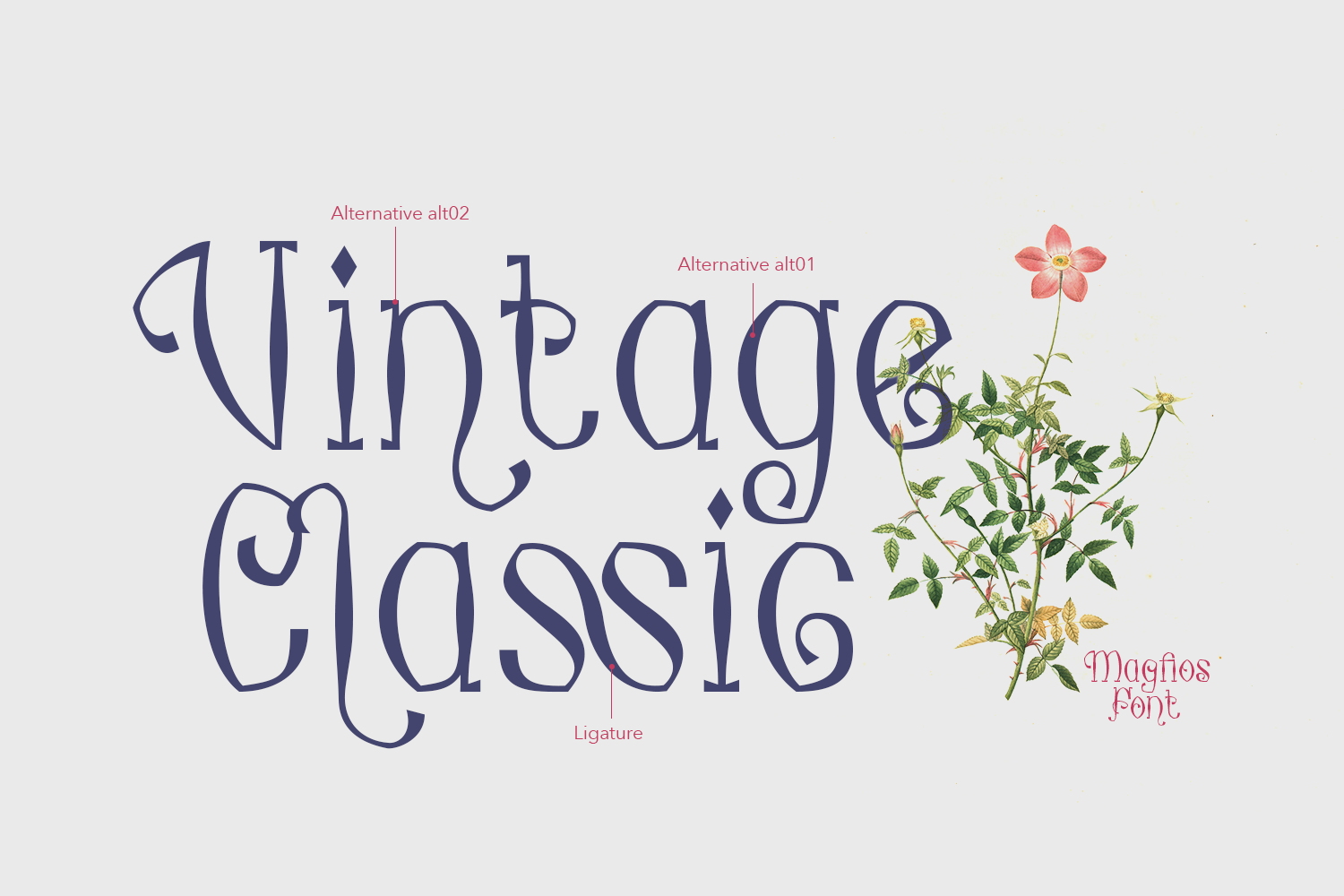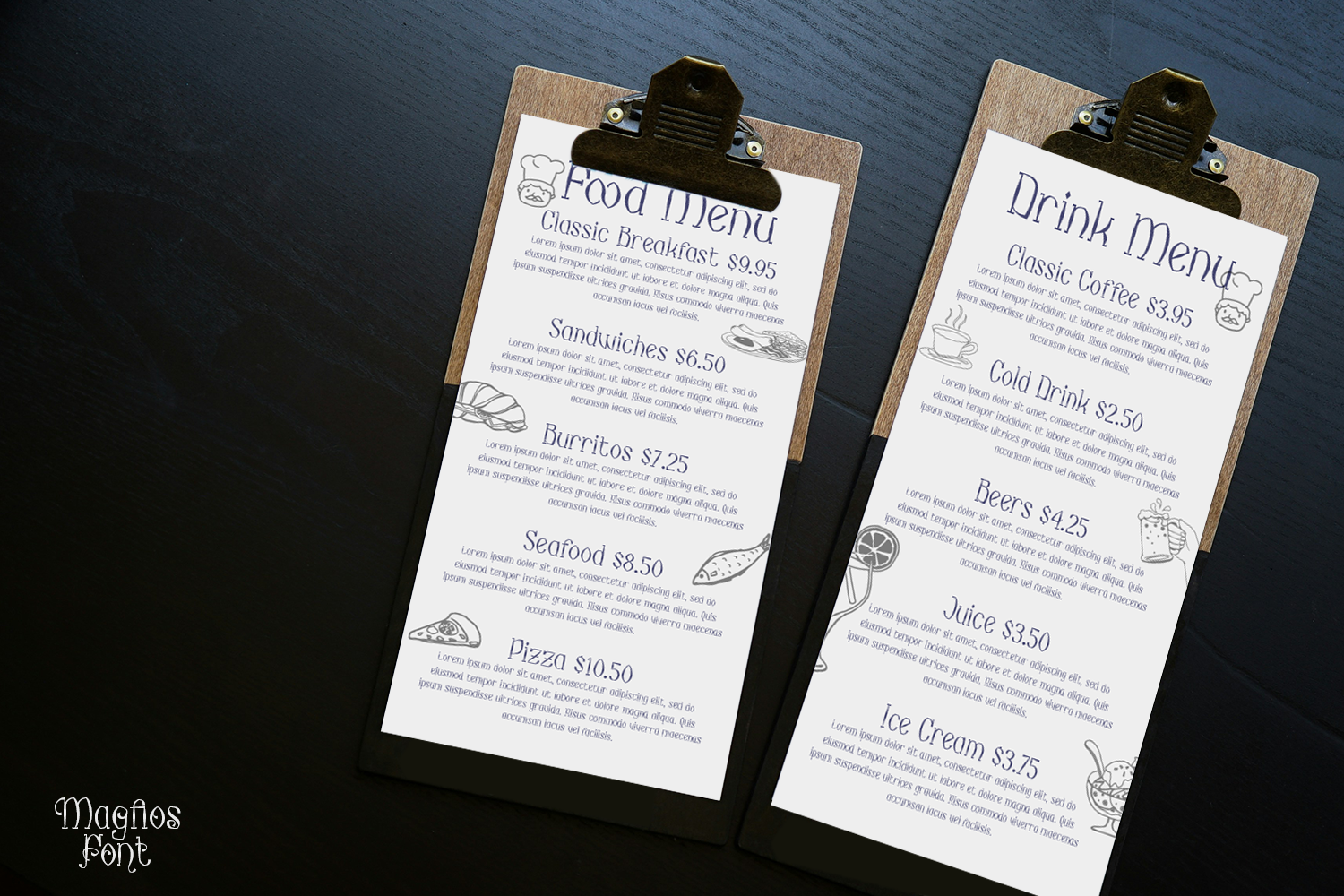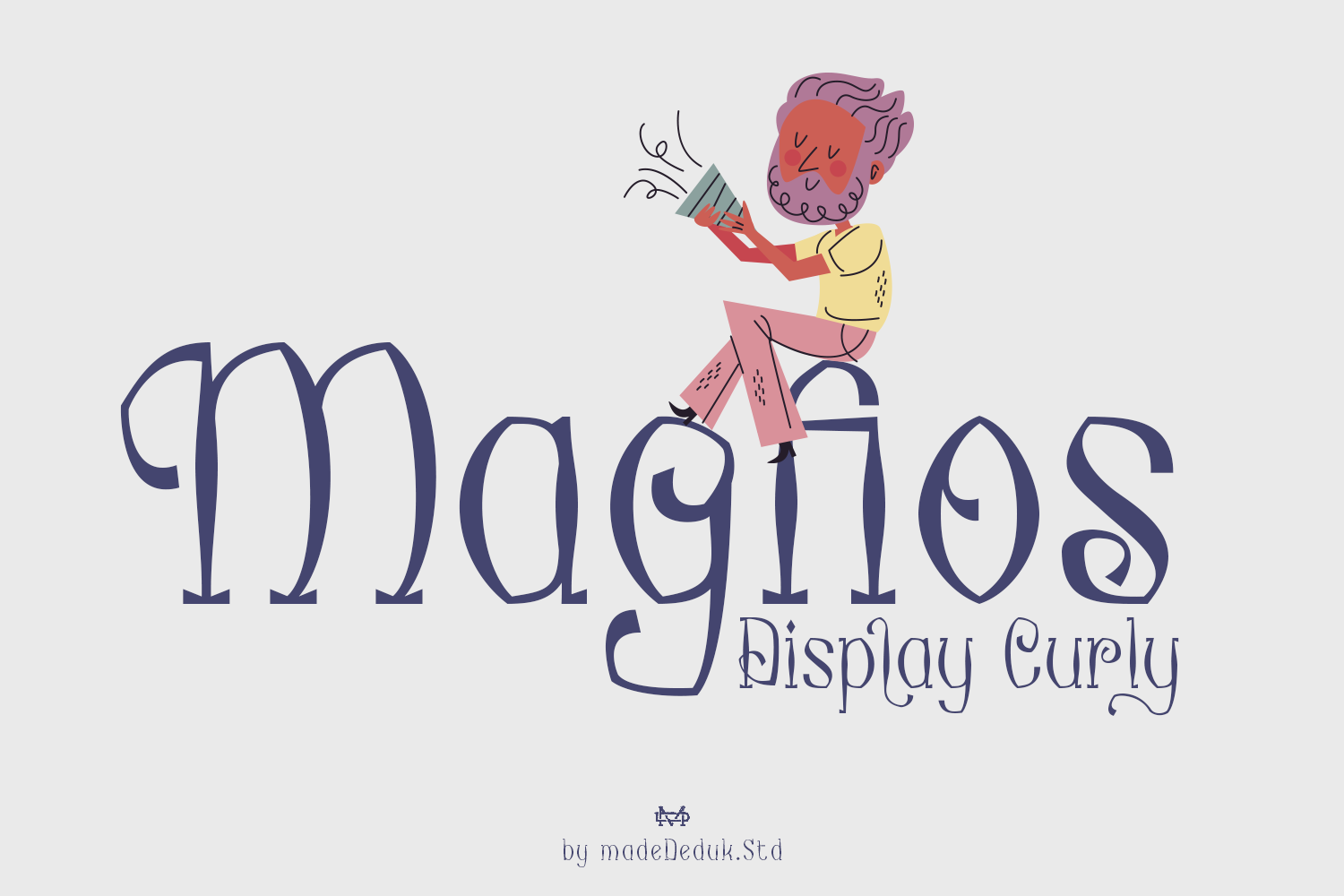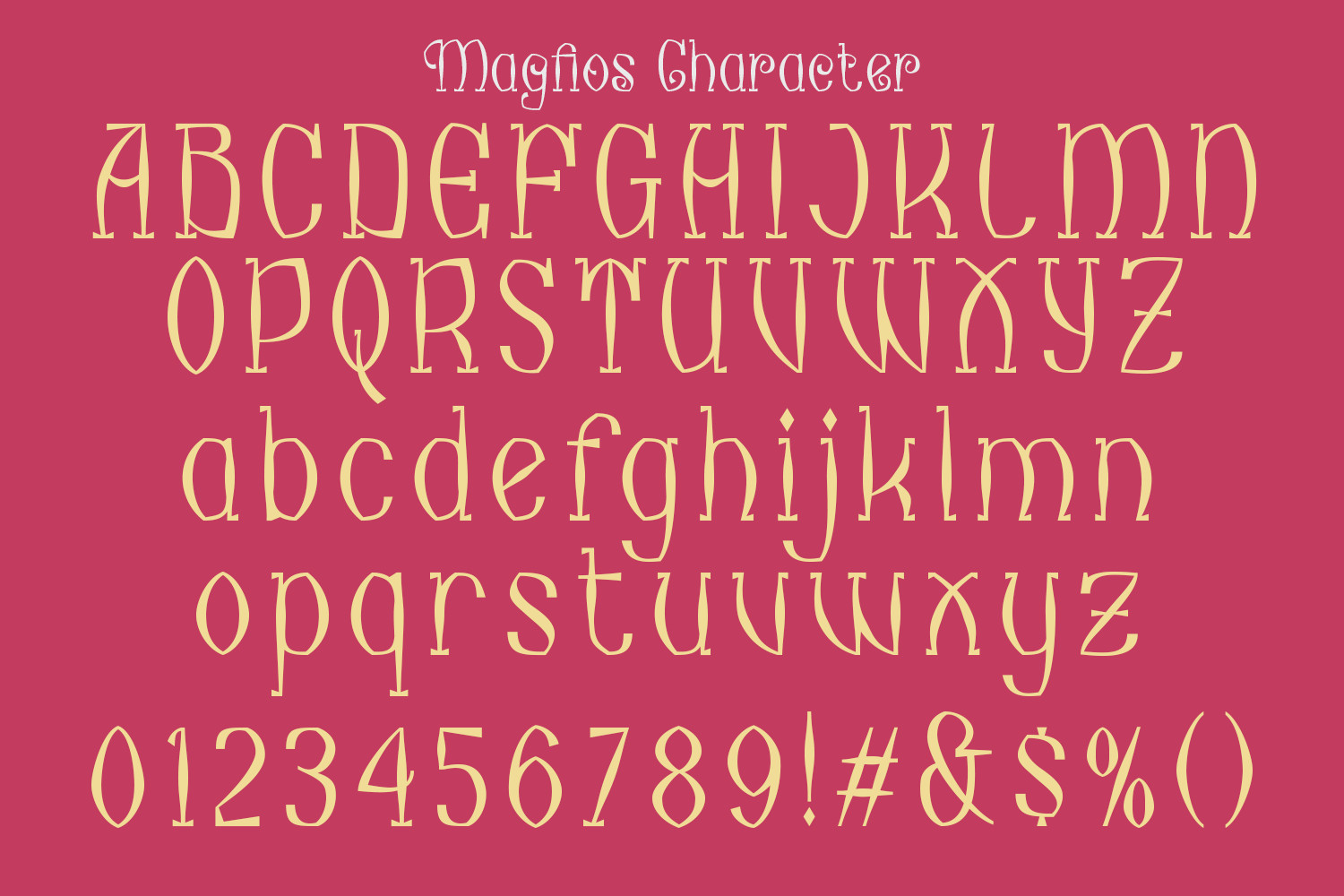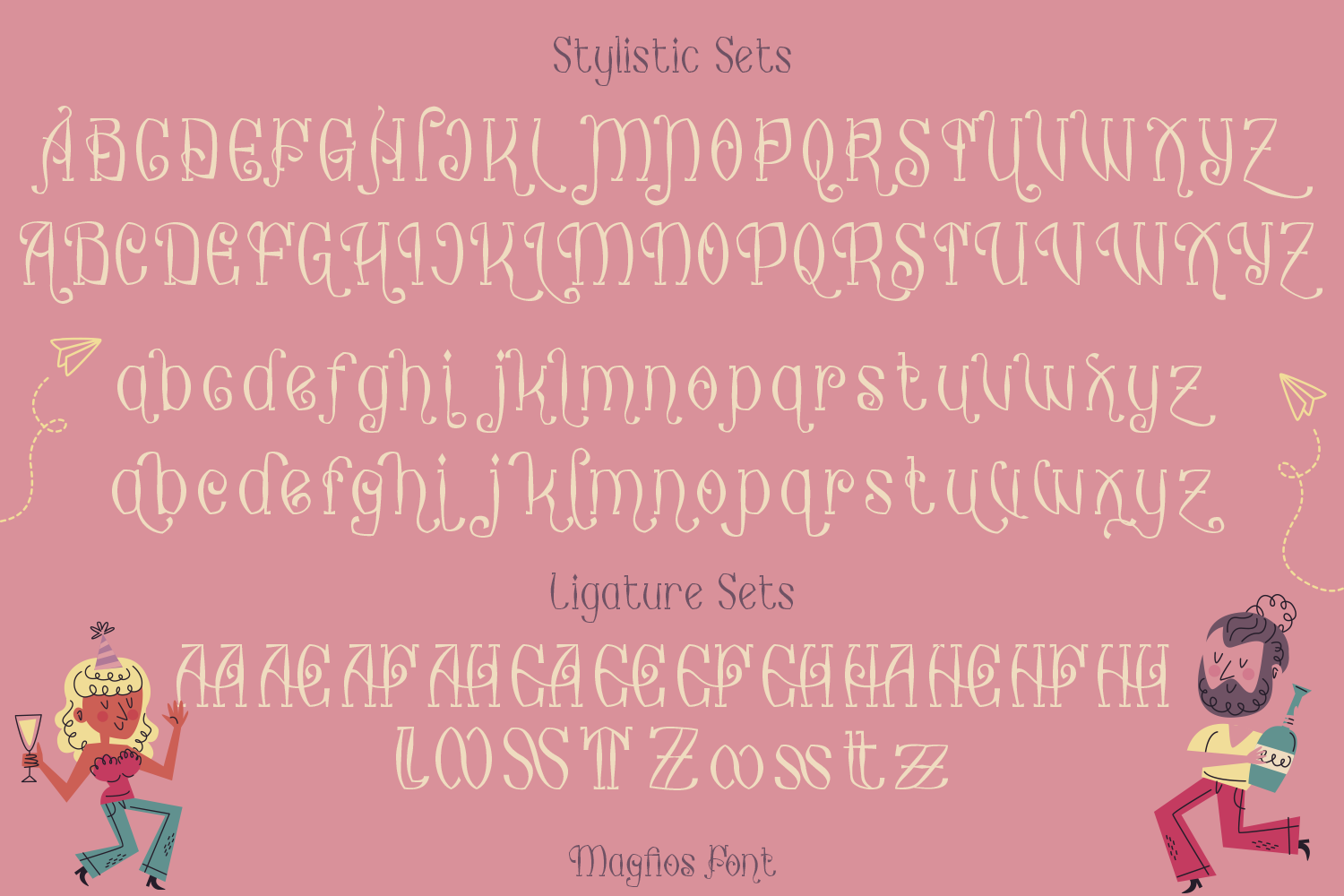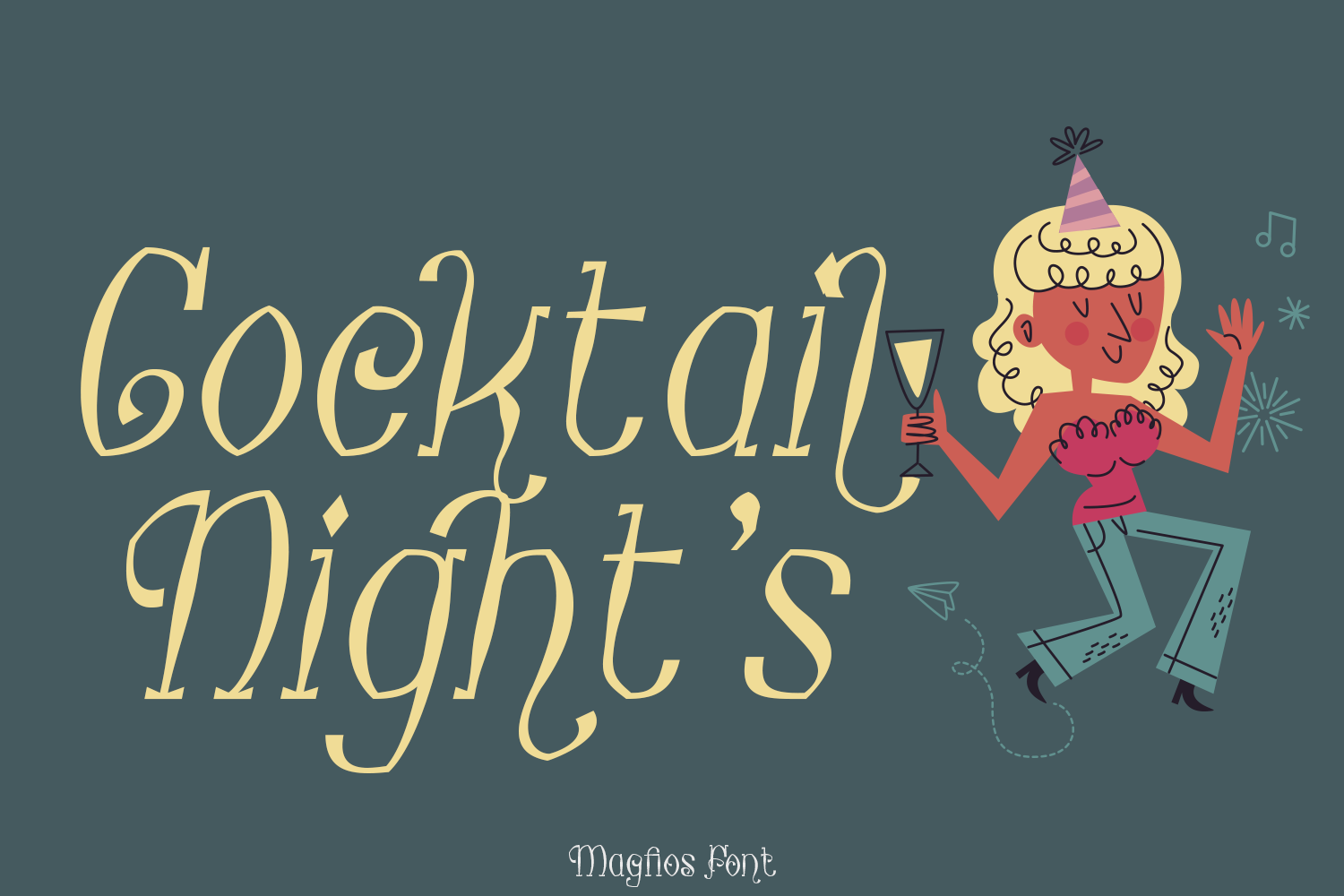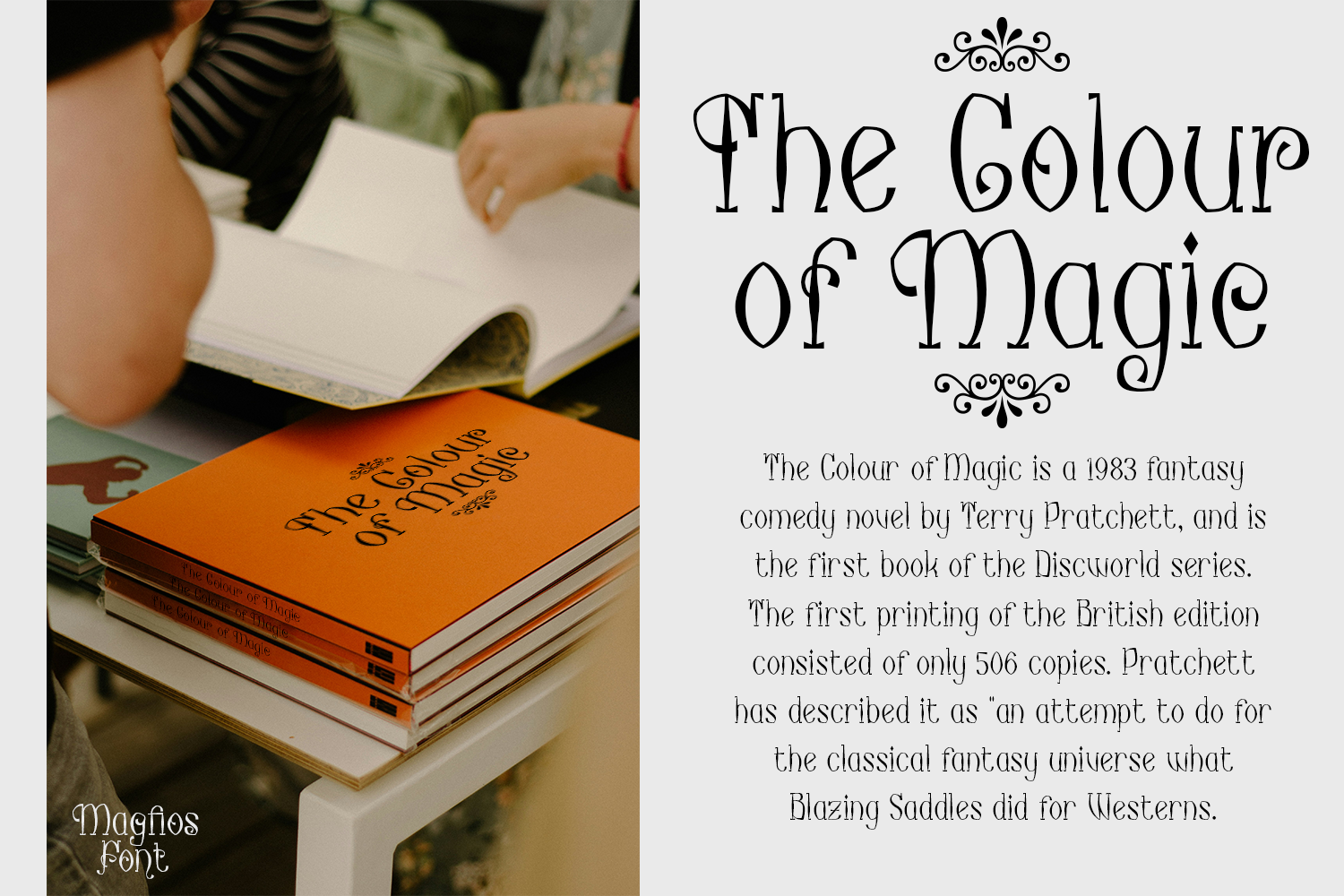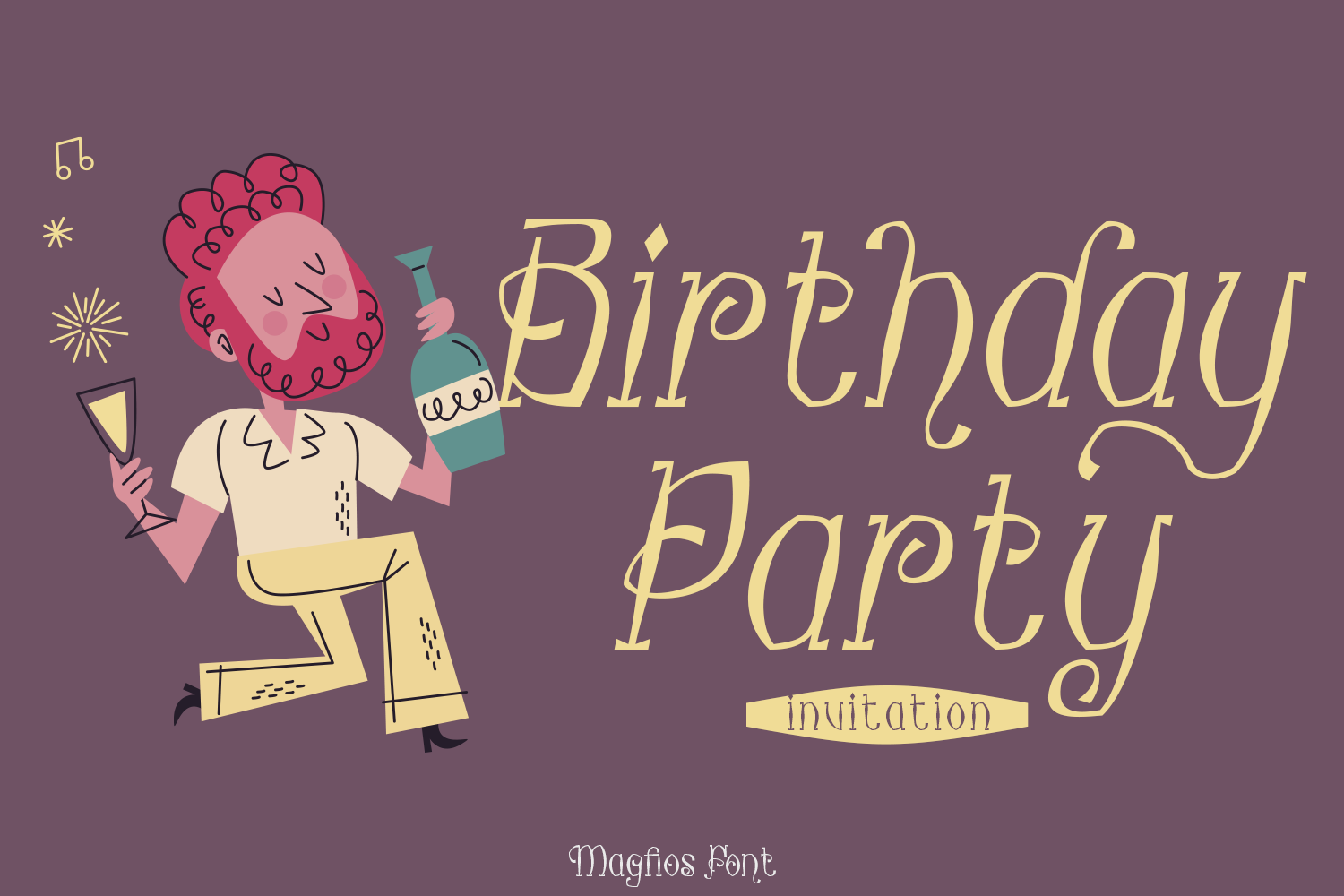
Magfios Font
Introducing Magfios is a mix of playful and stylish font, a little unique serif brings you back in time. Ready to make your projects as unique as you are, brings effortless style to posters, wedding invites, menus, kids books, delightful packaging, logos and so much more.
- Number & Symbol
- International Glyphs
- Alternative
- Ligature